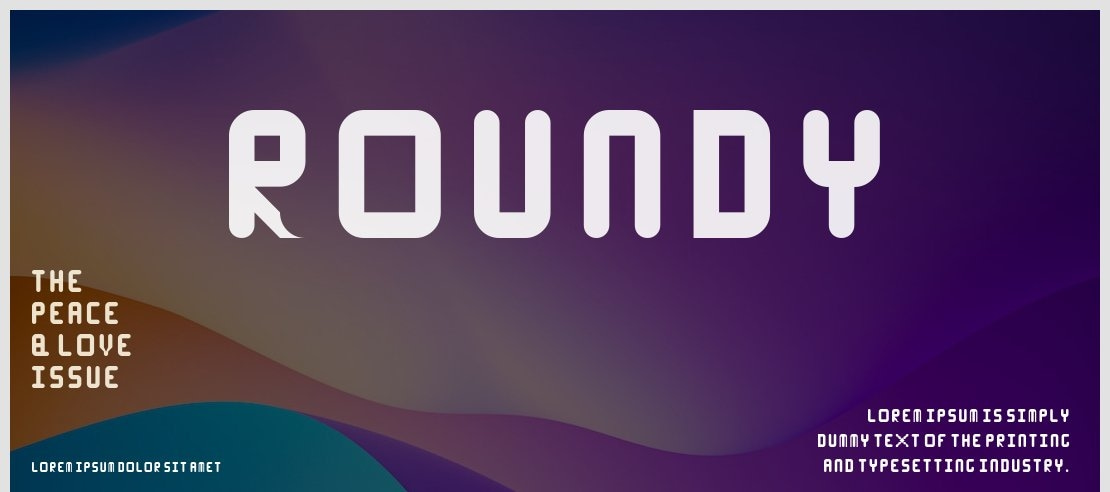
Roundy Font is perfect for children's toy packaging, friendly app interfaces, bubble-themed designs, soft playground signage, gentle baby products, rounded furniture branding, cozy café materials, kid-friendly educational content, smooth technology interfaces, and warmly welcoming marketing communications.
Roundy Font is exciting because it embodies the gentle comfort and universal friendliness of perfectly rounded forms with its softly circular letterforms that feel like warm hugs and radiate the safe, approachable charm that makes everyone feel instantly welcome. Its delightfully rounded character design reflects both the ergonomic wisdom of smooth, touchable surfaces and the psychological comfort that rounded shapes provide to human perception, making it perfect for brands seeking to create safe, friendly experiences that appeal to all ages.
Roundy Font family includes thin, light, regular, medium, bold, and black weights, each with corresponding italic versions. The font family also features circular ornaments, bubble-inspired ligatures, rounded symbols, and soft decorative elements that enhance its friendly aesthetic and comfort-focused versatility.
This warmly approachable typeface represents the perfect fusion of geometric simplicity and emotional comfort. Roundy Font Free Download allows designers to experience its rounded appeal before making a commercial commitment. The font's ability to convey both modern sophistication and childlike comfort makes it ideal for family brands, technology companies, and educational organizations targeting audiences seeking safe, friendly, and universally appealing experiences.
Whether you're developing family-friendly brand identities, creating children's educational materials, or designing comfort-focused communications, Roundy Font brings an unmistakable sense of gentle friendliness and rounded comfort to every project. Its circular character and comfort heritage create emotional connections that make audiences feel safe, welcome, and positively engaged with your brand.
The font's versatility excels in family and technology environments where friendliness and comfort are essential. Its rounded character makes it particularly effective for children's brands, family services, educational institutions, and technology companies seeking to establish warm, trusting relationships with families and users who value safety, comfort, and approachable design.
For designers working on projects requiring genuine friendliness and rounded appeal, Roundy Font provides an exceptional solution. Its warmly circular presence and comprehensive comfort-themed elements offer the tools needed for creating truly welcoming communications, while its gentle sophistication ensures your designs capture the perfect balance of modern functionality and universal comfort that defines the most approachable and family-friendly brand experiences.